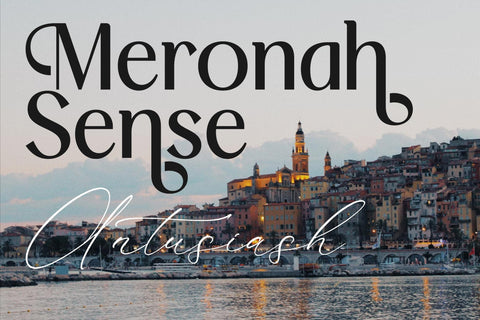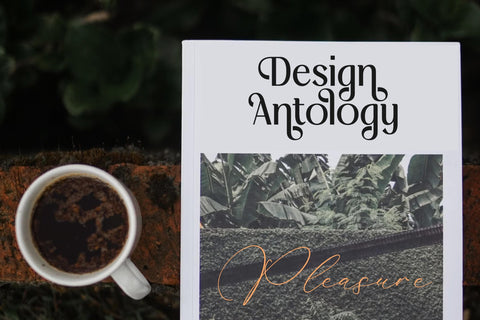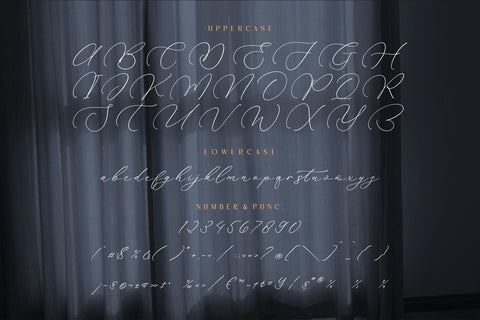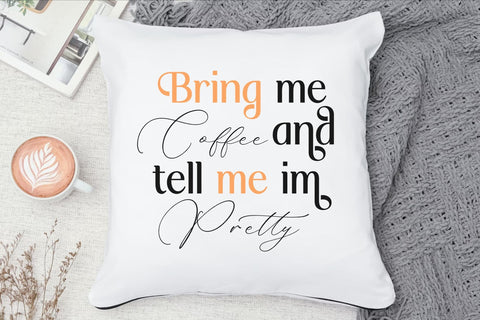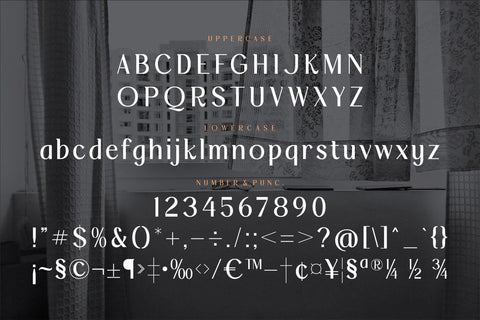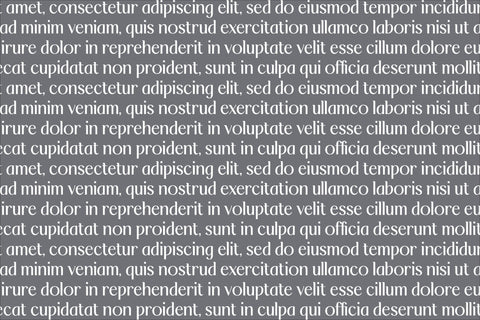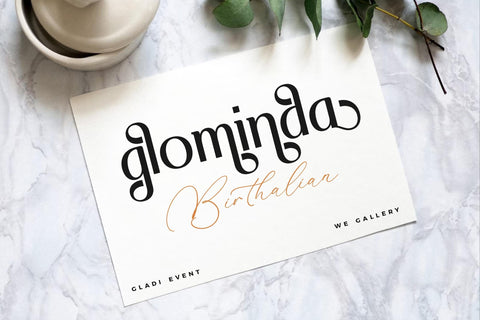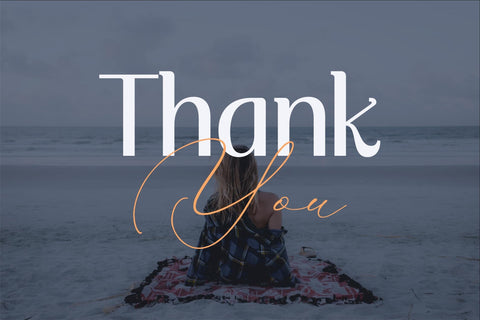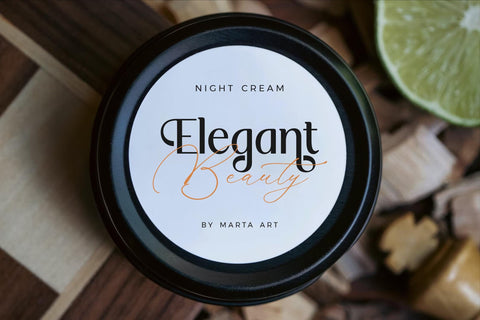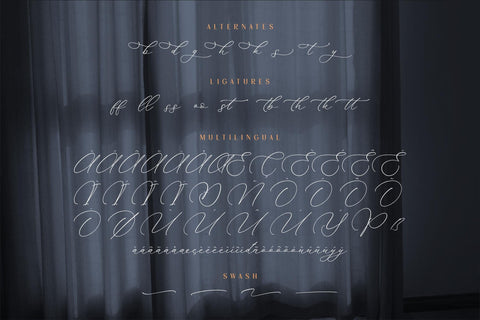
Rokuna Alenthush Font Duo
Proudly present Rokuna Alenthush Font Duo , created by Storytype,
A serif and script typeface that has own unique style & modern look.